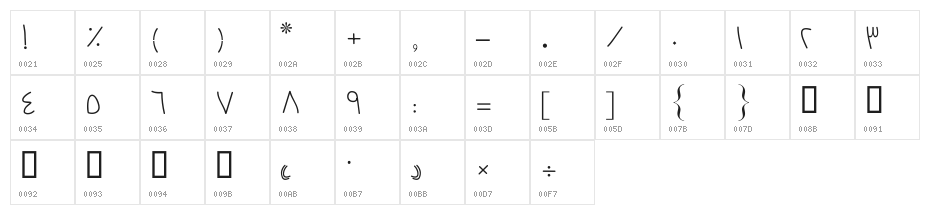
Destkhat Shang V Font
Destkhat Shang V Description
The image does not display a valid Latin font; instead, it shows placeholder glyphs or missing character boxes for the alphabet, with only numerals and some symbols visible in a handwritten, casual style.
گالری فانت فارسی پژوهش آريانا - only compatible with Farsi and Arabic